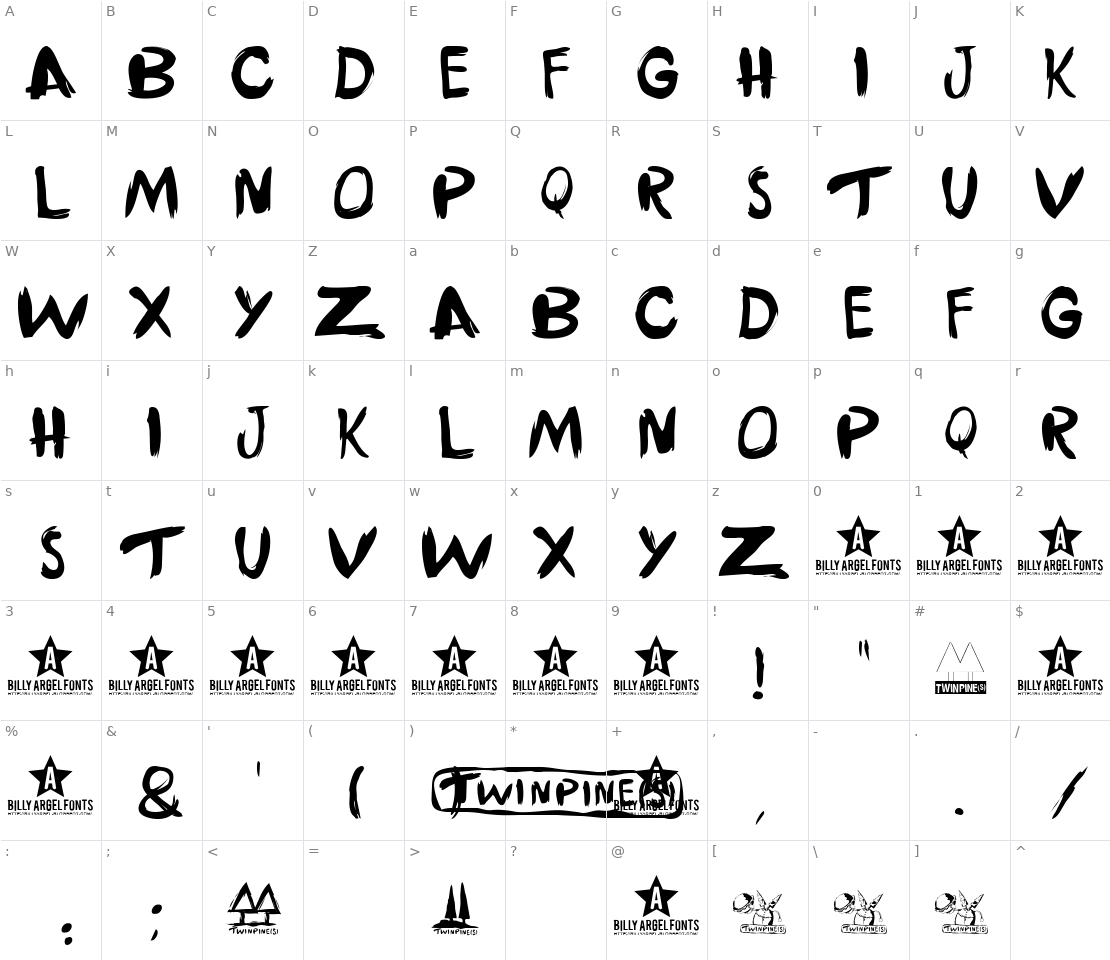
Twinpines
Twinpines is a bold brush face from Billy Argel with thick, expressive strokes that carry the energy of real hand-painted lettering. The rough edges and uneven weight feel spontaneous rather than manufactured, giving it a raw, physical quality that works well for posters, headlines, and branding where you want something that looks like it was made with actual paint on paper.